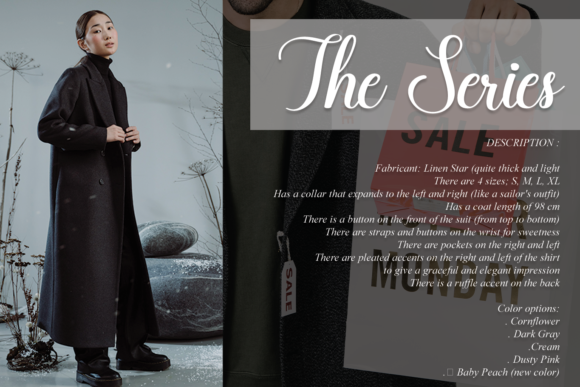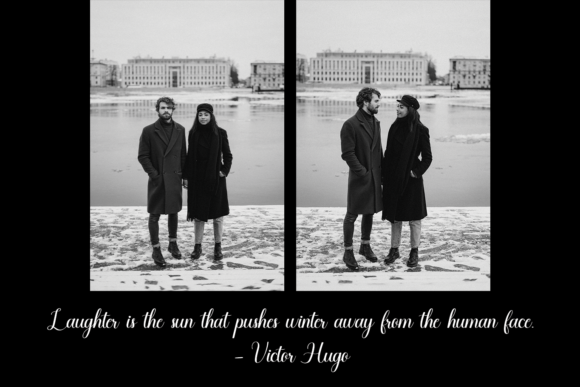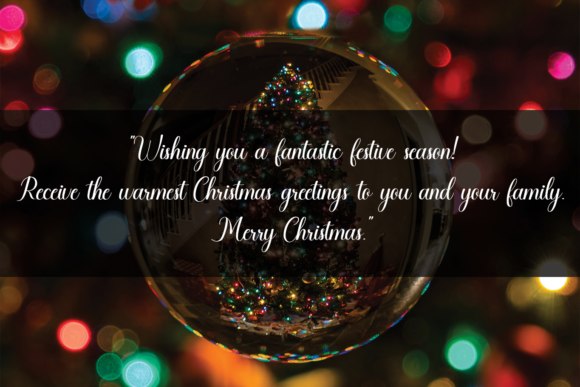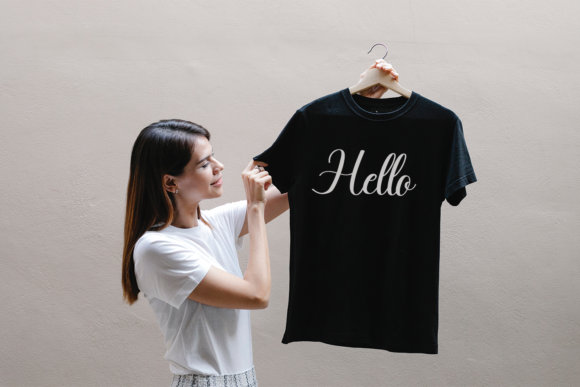
Hello Christmas Font: A Festive and Fashionable Script Font for Your Holiday Projects
Are you looking for a font that captures the essence of Christmas and adds a touch of elegance to your designs? Look no further than the Hello Christmas font, a beautifully crafted script font that is perfect for holiday projects, festive crafts, and seasonal designs. In this article, we’ll explore the features and benefits of Hello Christmas font, and show you how it can elevate your designs to the next level.
A Fashionable Script Font for the Holiday Season
Hello Christmas is a fashionable script font that is neatly crafted and highly detailed. Its elegant and flowing lines evoke the spirit of Christmas, making it an ideal choice for designers and crafters who want to create holiday-themed projects that stand out. Whether you’re designing a Christmas card, a holiday gift tag, or a festive poster, Hello Christmas font is sure to add a touch of sophistication and style to your creations.
Key Features of Hello Christmas Font
- Fashionable script font: Hello Christmas font features elegant and flowing lines that give it a stylish and sophisticated look.
- Highly detailed: The font is carefully crafted with attention to detail, ensuring that it looks great in any size or application.
- Versatile: Hello Christmas font can be used for a wide range of holiday projects, from Christmas cards and gift tags to festive posters and social media graphics.
- Easily readable: Despite its elegant and cursive nature, Hello Christmas font is easy to read, making it perfect for use in body text or headlines.
Benefits of Using Hello Christmas Font
So why choose Hello Christmas font for your holiday projects? Here are just a few benefits of using this beautiful script font:
- Adds a touch of elegance: Hello Christmas font adds a level of sophistication and style to your designs, making them perfect for special occasions like Christmas.
- Enhances creativity: With its unique and elegant lines, Hello Christmas font can inspire your creativity and help you come up with fresh ideas for your holiday projects.
How to Use Hello Christmas Font in Your Designs
Using Hello Christmas font in your designs is easy. Here are a few tips to get you started:
- Pair it with a bold font: Pair Hello Christmas font with a bold font to create a striking contrast and add visual interest to your designs.
- Use it for headlines: Hello Christmas font is perfect for use in headlines, where its elegant lines can add a touch of sophistication and style.
- Experiment with colors: Hello Christmas font looks great in a range of colors, from traditional holiday colors like red and green to metallic colors like gold and silver.
Hello Christmas font is a beautiful and elegant script font that is perfect for holiday projects and festive designs. With its fashionable lines, highly detailed craftsmanship, and versatile nature, it’s an ideal choice for designers and crafters who want to add a touch of sophistication and style to their creations. Whether you’re designing a Christmas card, a holiday gift tag, or a festive poster, Hello Christmas font is sure to enhance your designs and make them stand out.